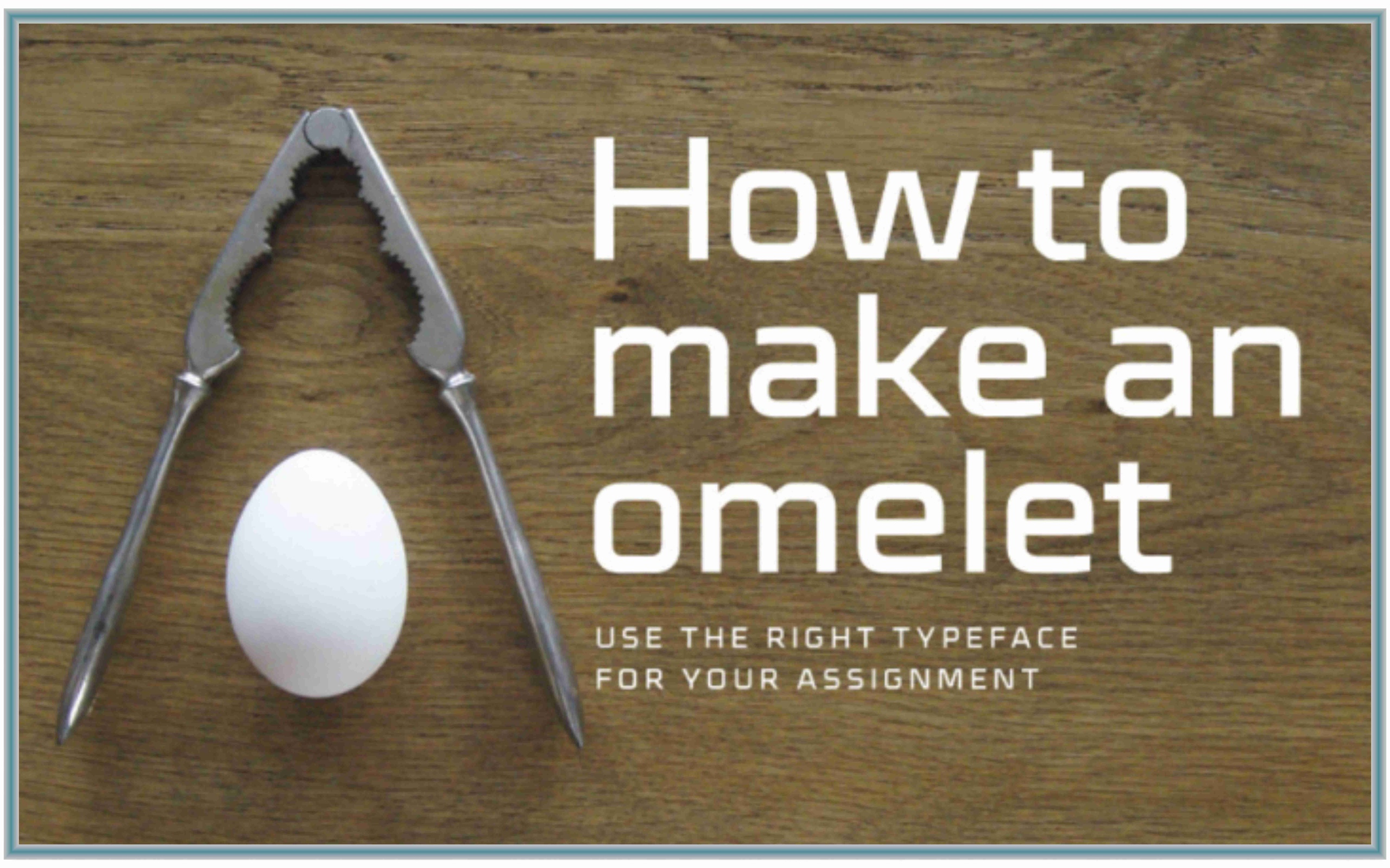
Cube Font
Cube Font is ideal for geometric design projects, architectural firm branding, 3D modeling software interfaces, puzzle game graphics, mathematics education materials, engineering presentations, modern art galleries, tech startup logos, spatial design concepts, and contemporary visual identity systems.
What makes Cube Font so exciting is its precise embodiment of three-dimensional thinking and geometric perfection that captures the fundamental building blocks of spatial design through mathematically inspired typography. This structurally engineered typeface features perfectly balanced letterforms with cubic proportions and dimensional character variations that immediately convey precision, stability, and the architectural beauty of geometric harmony. The font's systematic construction and three-dimensional aesthetic create an instant sense of spatial intelligence and design sophistication, making it ideal for projects that need to communicate structural thinking, mathematical precision, and the foundational principles of dimensional design to audiences seeking clarity, order, and geometric elegance in their visual communications.
The Cube Font family typically includes multiple dimensional weights and geometric styles, often featuring light, regular, and bold variations along with structurally precise italic versions. Geometric font collections frequently offer additional spatial elements such as cubic symbols, dimensional ornaments, and mathematical decorations that enhance the architectural aesthetic and provide designers with comprehensive tools for creating systematically organized and visually compelling communications.
Cube Font Free Download provides designers with an invaluable tool for creating structurally sound and geometrically compelling designs. Whether you're developing materials for architectural firms, crafting branding for engineering companies, or designing educational content that explains complex spatial concepts and mathematical principles, this font delivers the dimensional presence that technical professionals and geometry-conscious audiences appreciate and trust.
The geometric precision of Cube Font makes it particularly effective for targeting demographics that value systematic thinking and mathematical accuracy in their professional and educational pursuits. Technical marketers and educational developers will find this font especially valuable for materials that must establish immediate credibility and connect with audiences seeking clear, logical communication and precise geometric representation.
What distinguishes Cube Font is its ability to convey complex spatial concepts while maintaining the simplicity necessary for effective geometric communication. This balanced characteristic makes it suitable for both advanced technical applications and introductory educational contexts where projecting mathematical competence and maintaining accessibility must coexist harmoniously.
Professional designers recognize that Cube Font brings invaluable geometric credibility to projects across industries including architecture, engineering, mathematics education, and technical design. Its cubic character and dimensional appeal make it essential for organizations whose mission centers on creating, teaching, and applying geometric principles to solve complex spatial challenges and design problems.
The mathematically precise construction of Cube Font ensures consistent geometric messaging across all dimension-focused communication applications while honoring the fundamental role of geometry in human understanding and spatial design.